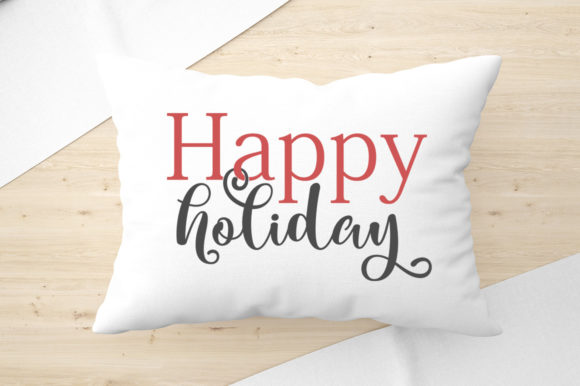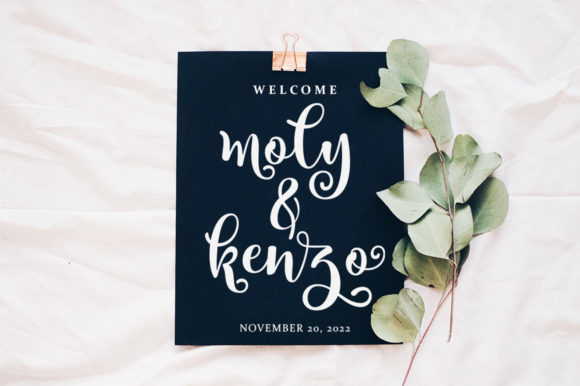
Longtime Font
db-ku.com - Script & Handwritten -- Longtime is a well-balanced and subtle handwritten font that is crafted with great care for maximum results. It will add elegance and class to any of your design projects.